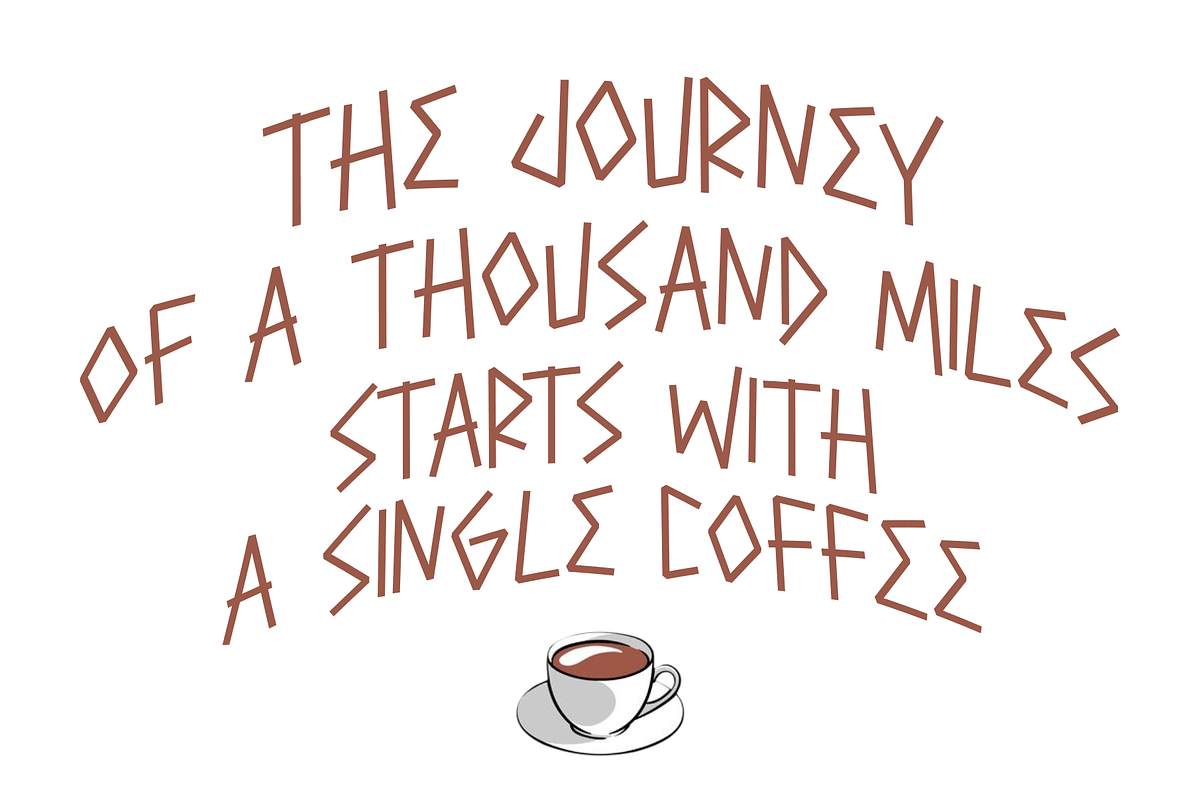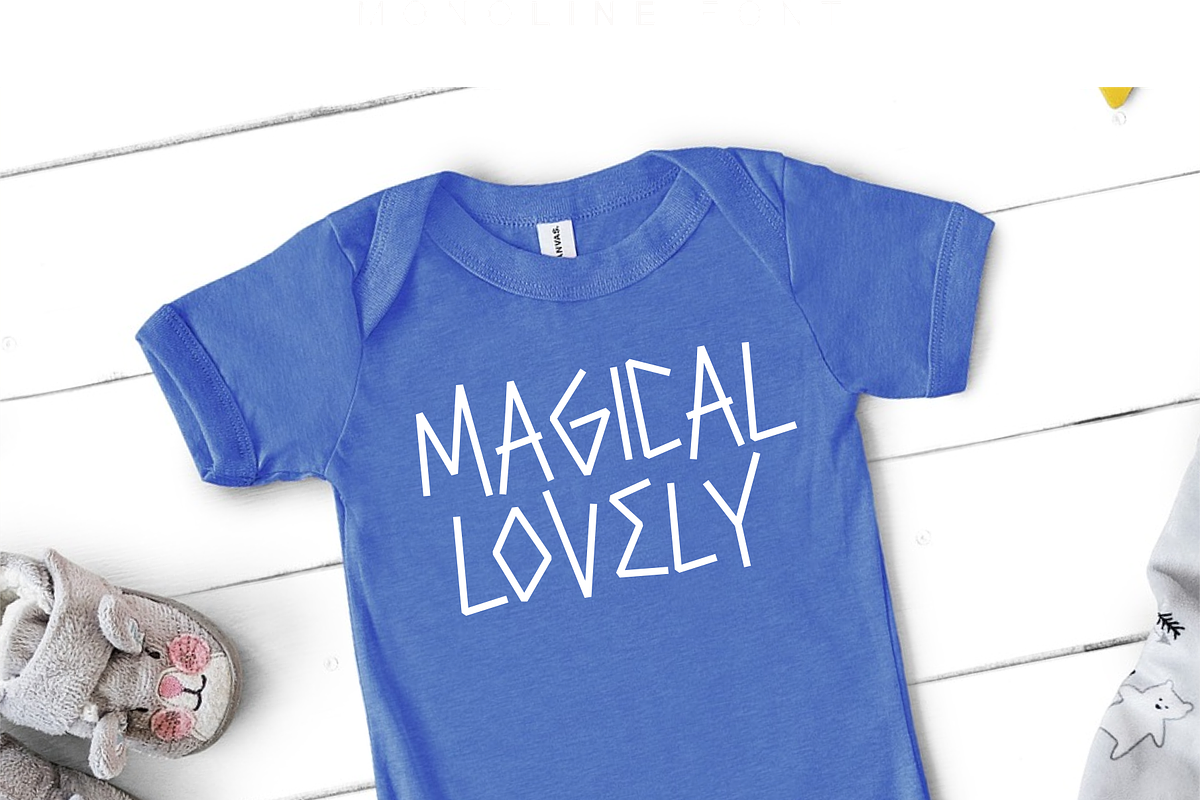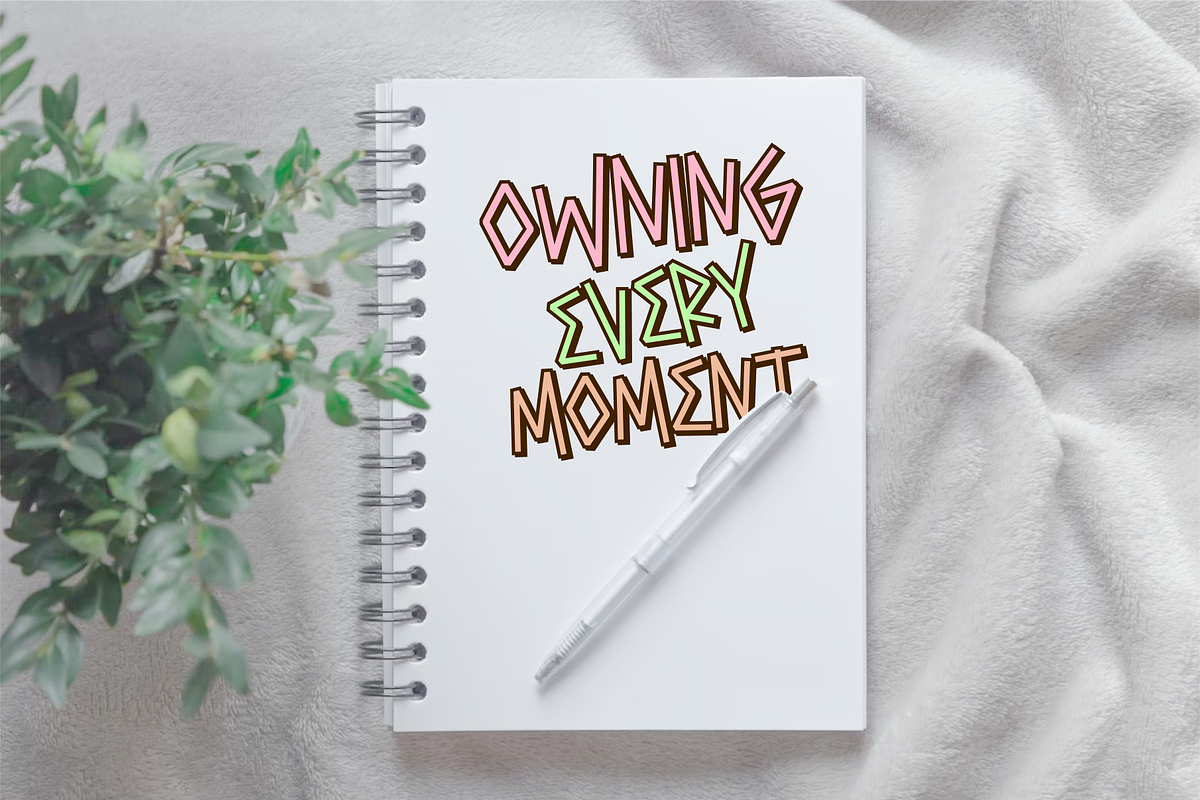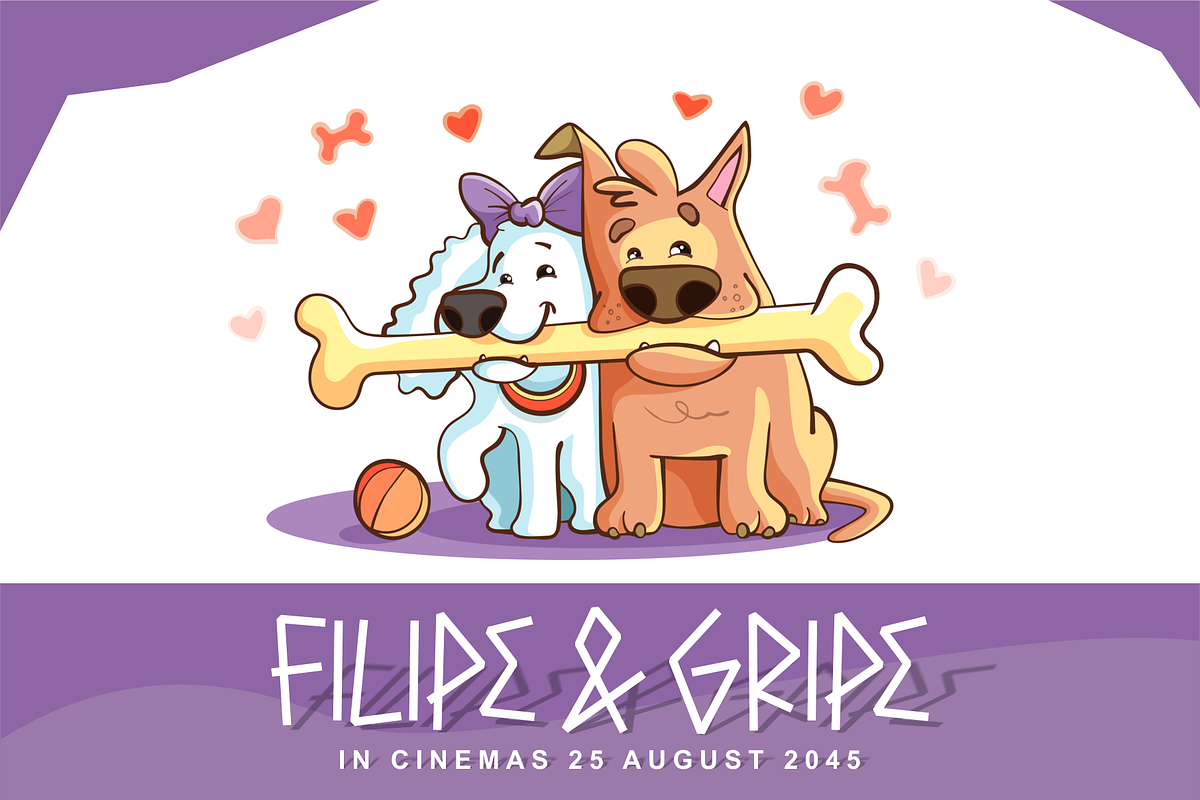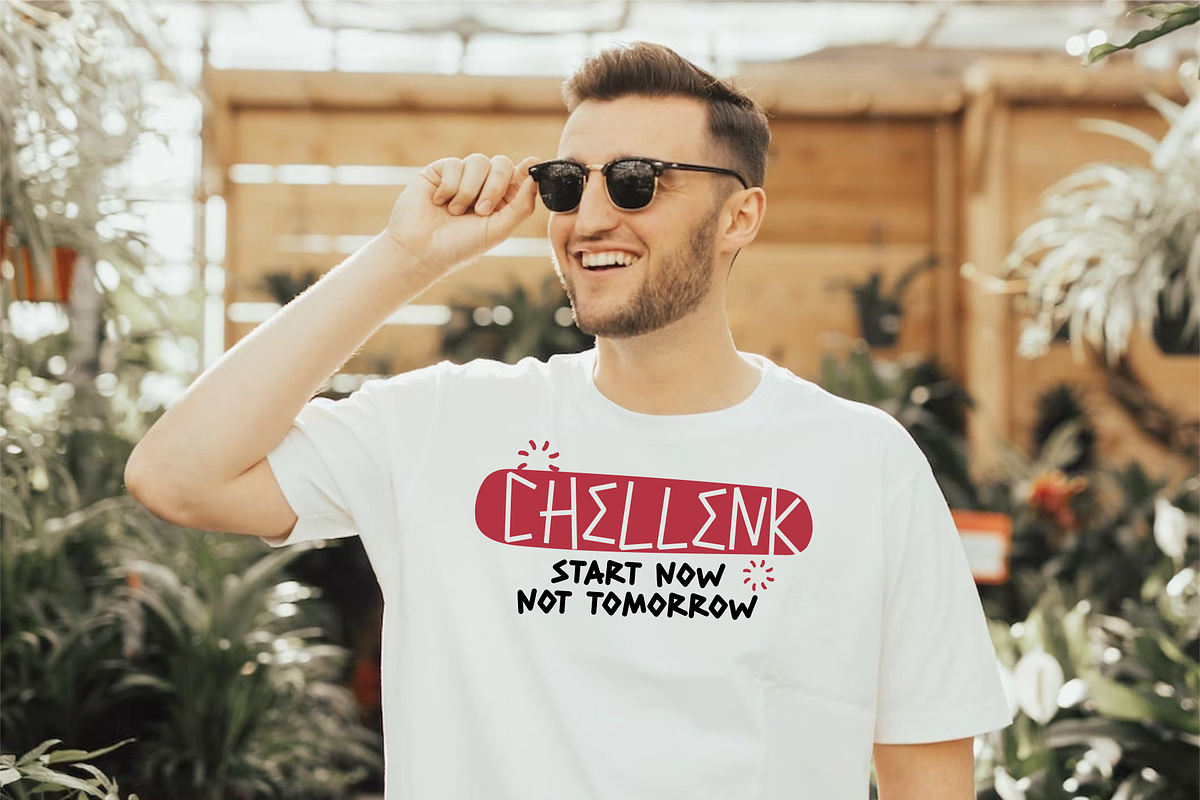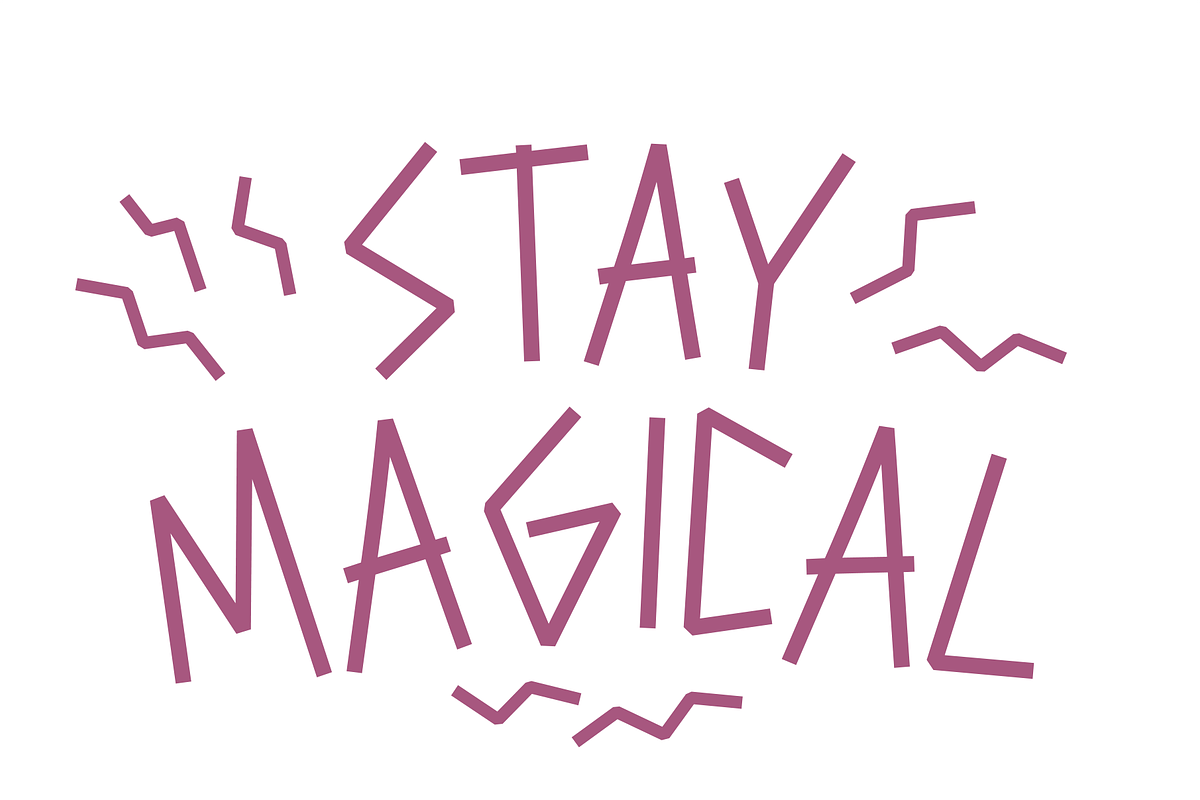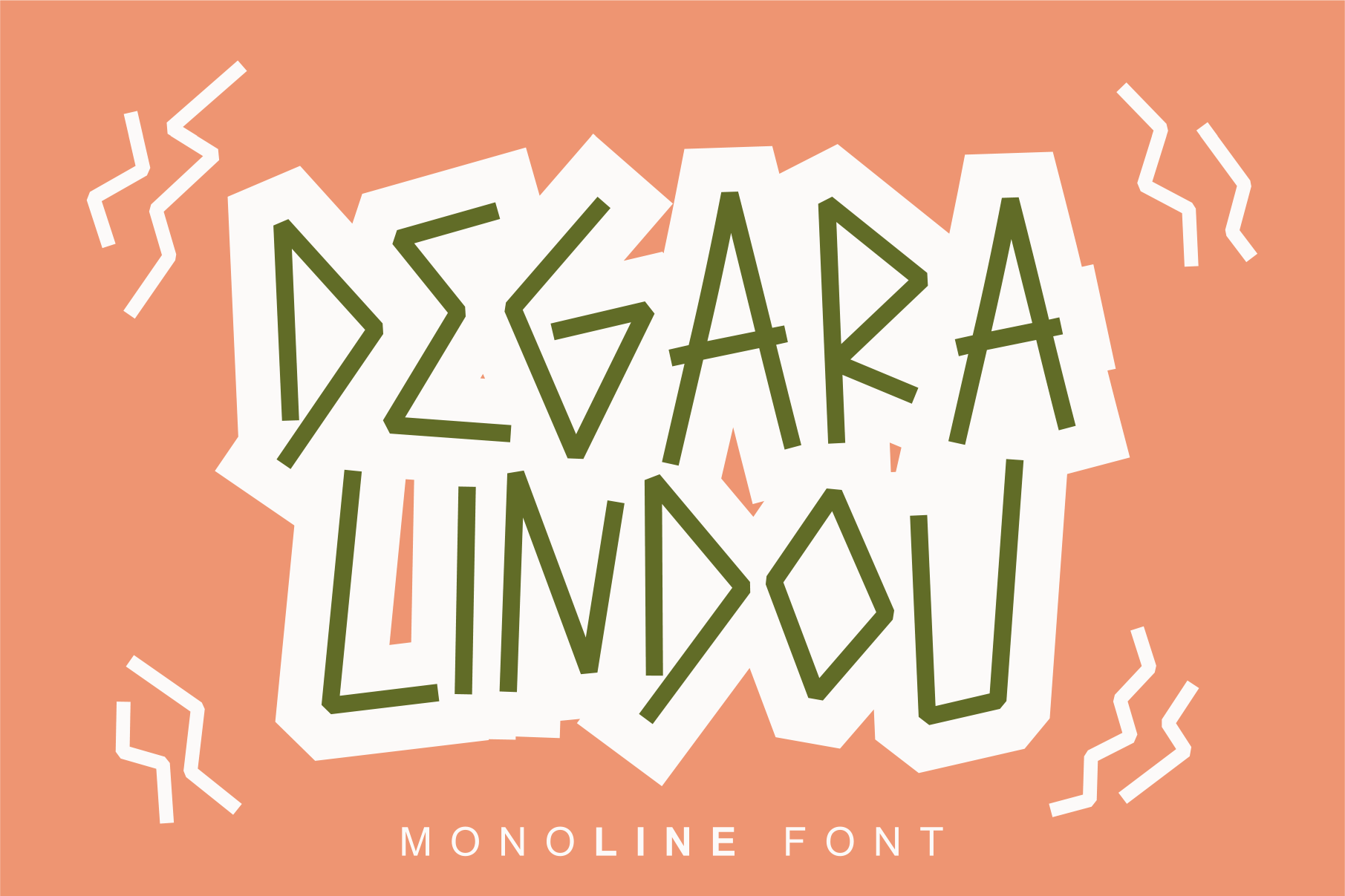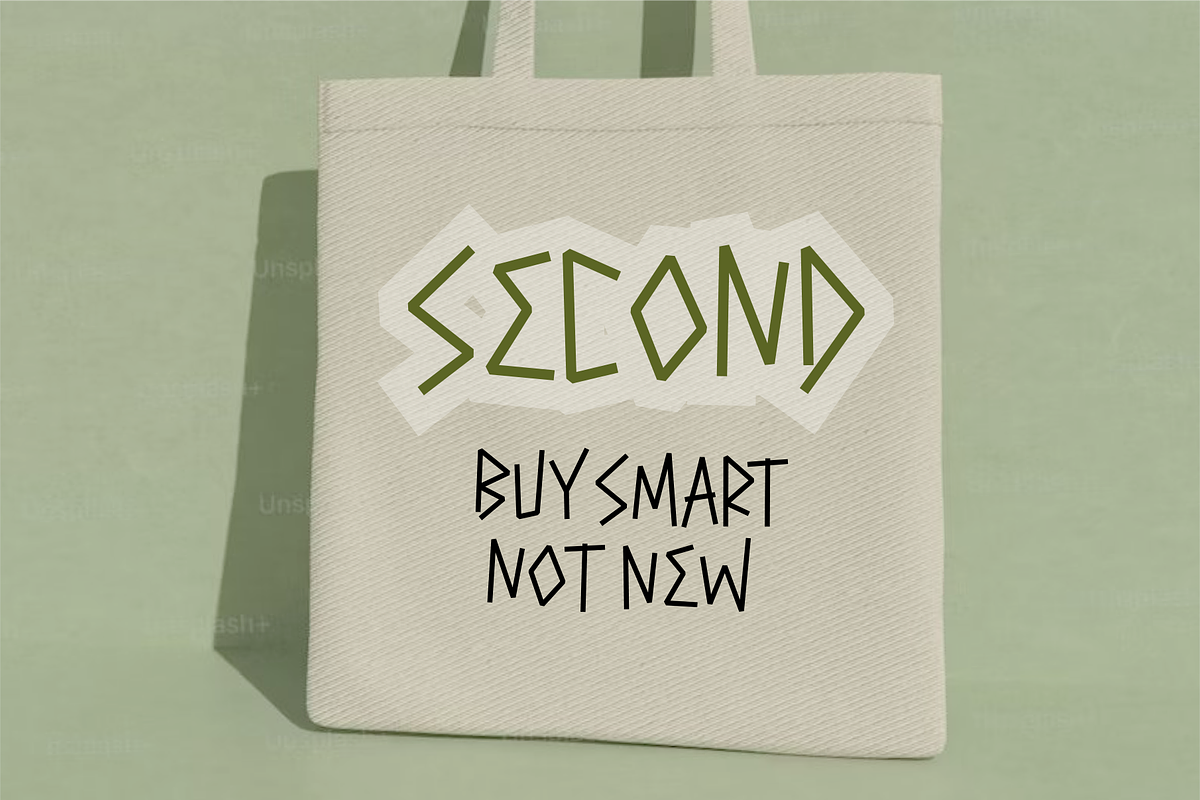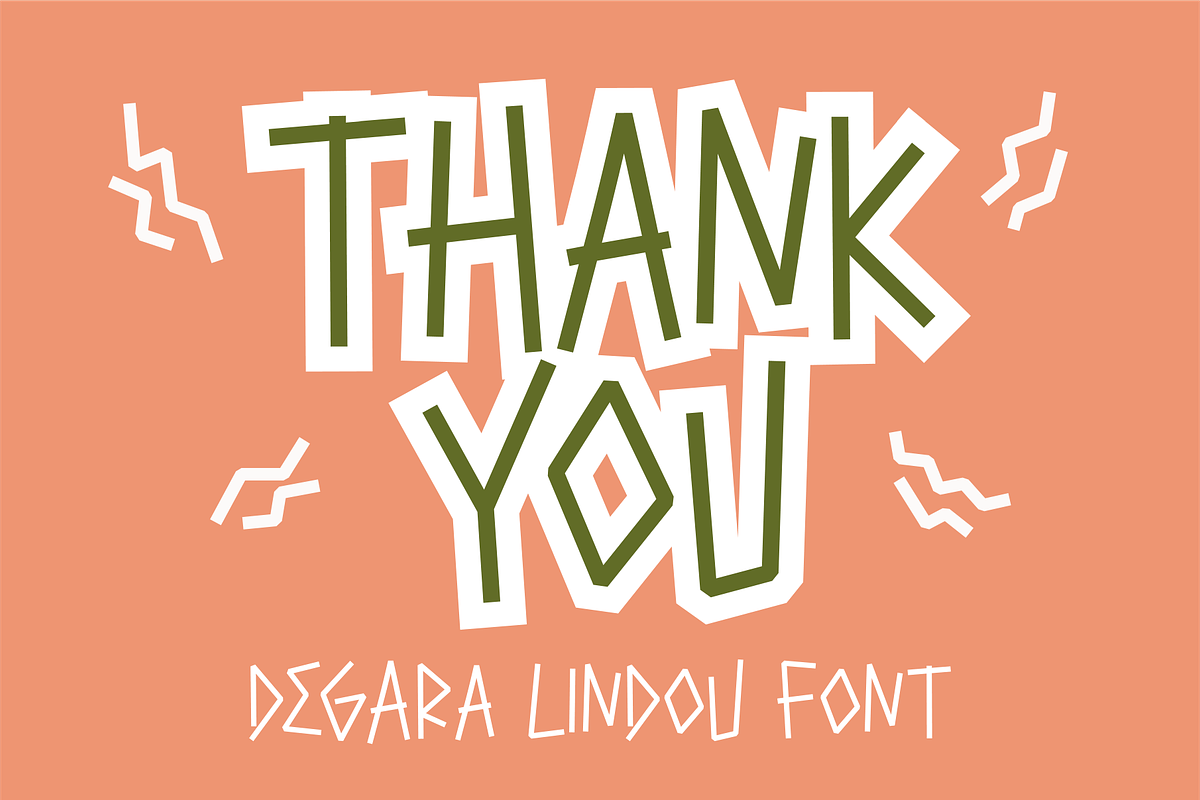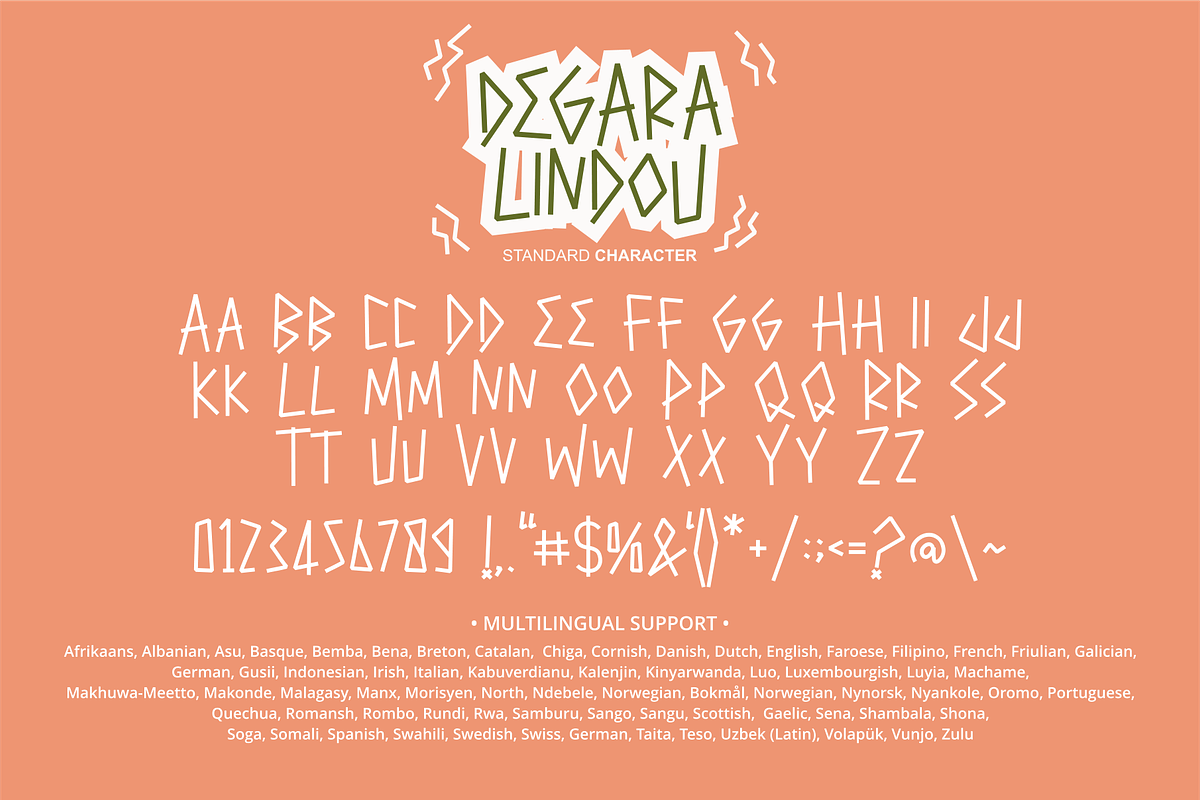
Degara Lindou Font
Degara Lindou Font is a cute and unique font with an incredibly friendly feel. Whether you’re looking for fonts for Instagram or calligraphy scripts for DIY projects, this font will turn any creative idea into a true piece of art!